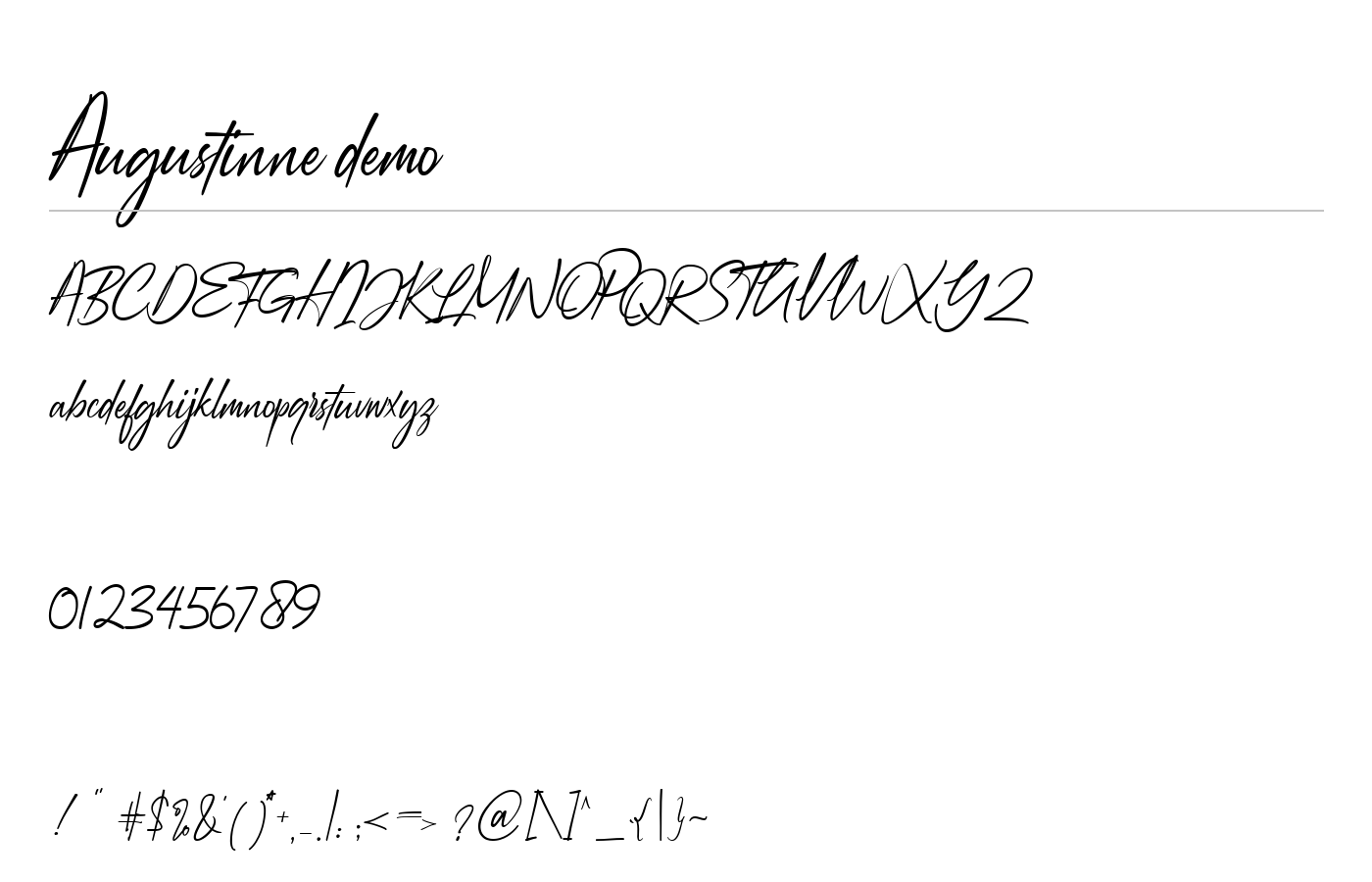
Augustinne demo is a delicate, handwritten script font characterized by its thin, flowing strokes and elegant, slightly irregular letterforms. Its narrow width and graceful curves give it a personal, artistic feel, making it ideal for creative projects, invitations, and branding that seeks a touch of sophistication and intimacy. This font works beautifully in headlines and decorative text where a stylish, handcrafted look is desired.
Augustinne demo Font
About Augustinne demo Font